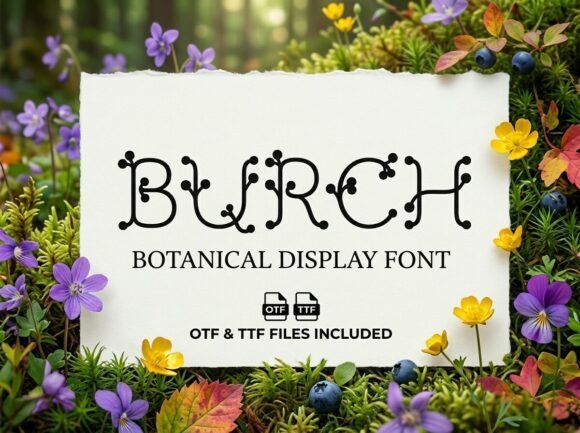
The Magic of Hand-Drawn Typography: Unveiling the Enchanting Burch Font
As a designer, have you ever found yourself lost in a sea of sans-serifs, yearning for a font that whispers tales of the forest floor? A font that embodies the essence of organic growth and whimsical charm? If so, you’re not alone. The quest for the perfect font can be a winding path, but sometimes, it’s the most unexpected discoveries that leave us spellbound.
Enter Burch Font, a display typeface that masterfully blends the lines between modern eco-conscious branding and forest folklore. This enchanting font features monoline, organic letterforms adorned with ‘budding’ nodes and delicate vine-like terminals, creating a unique visual identity that’s perfect for independent apothecary identities, boutique herbalist logos, and artisanal garden packaging.
- Unique Characteristics: Burch Font features a modern and clean design with a unique blend of geometric and rounded shapes, making it suitable for a wide range of applications, including branding, advertising, and editorial design.
Burch Font Review
As a designer, I was excited to dive into the Burch Font and see what it had to offer. Here’s my honest review.
- The Burch Font has a unique, hand-drawn feel that sets it apart from more generic fonts.
- The font is highly legible, even at smaller font sizes, making it a great choice for body text.
- The font family includes a wide range of weights and styles, giving designers plenty of options for customization.
- The font is highly versatile, working well for both digital and print projects.
- The Burch Font may not be the best choice for formal or corporate projects, as its hand-drawn feel can come across as too casual.
Overall, I think the Burch Font is a great addition to any designer’s toolkit. While it may have some limitations, its unique feel and high legibility make it a great choice for a wide range of projects. With a little caution and consideration, the Burch Font can be a valuable asset for any designer looking to add some personality to their work.
The Burch Font is a versatile font that can be used in a variety of contexts, from logos to body text. To get the most out of it, try experimenting with different font sizes, colors, and styles to see what works best for your design.
The Burch Font is commonly used in branding, logos, and typography projects. It’s also a popular choice for designers who want to add a touch of elegance and sophistication to their designs.